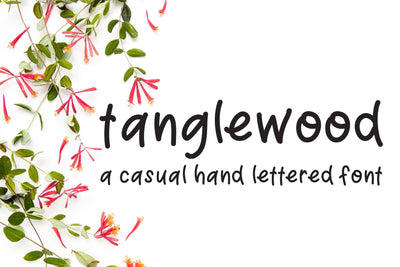
Tanglewood Hand Lettered Font | Handlettered Font
"Tanglewood" Hand Lettered Font
Tanglewood is a casual and versatile handwritten font that’s great for content, signage, sketching and just about anything you can think of. It's perfect when used for stationery, invitations and printed material.
- Uppercase A-Z
- Lowercase a-z
- Numbers 0-9
- Standard punctuation